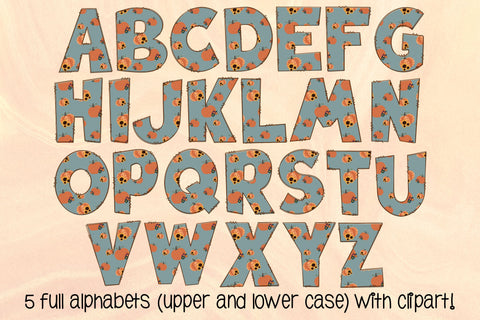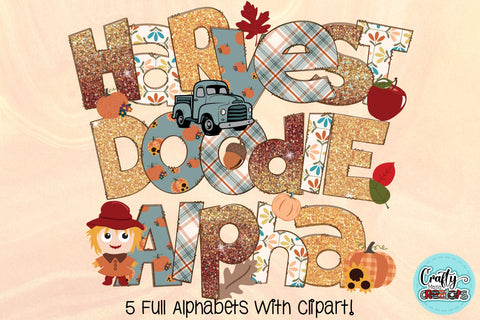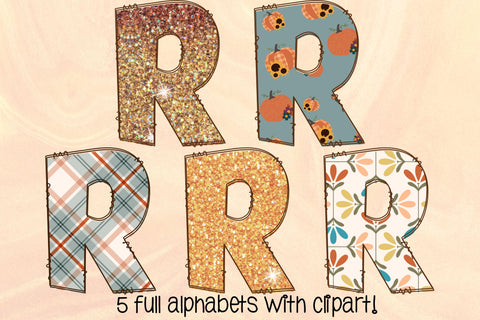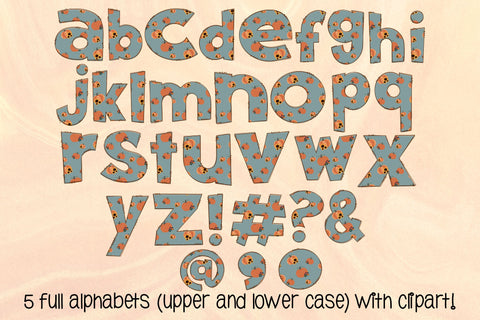
Autumn Harvest Doodle Letters PNG, Fall Alpha Bundle
5 Complete Doodle Sets Including: captial, lowercase, numbers, and special characters
- Capital letters A to Z
- Lowercase letters A to Z
- Numbers 0-9
- Bonus Characters
- Clipart